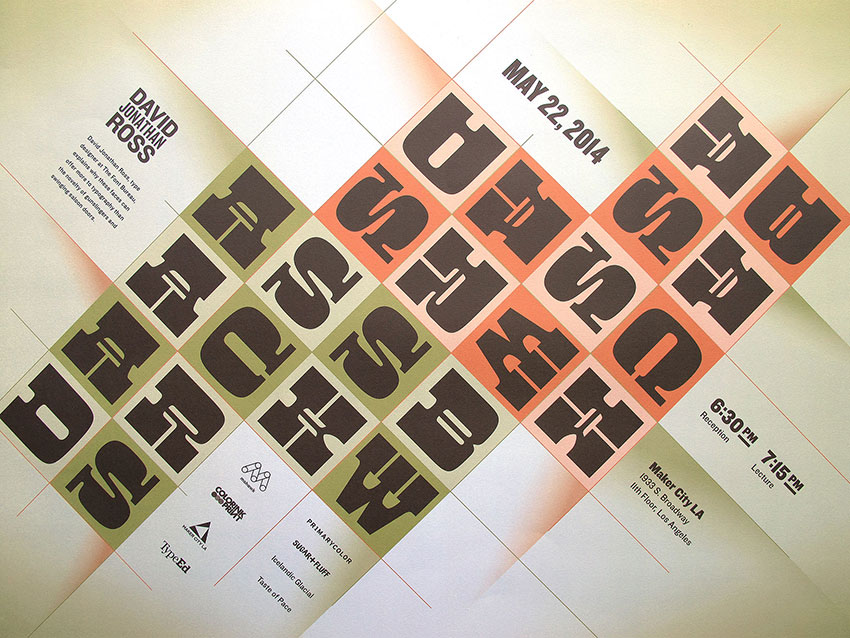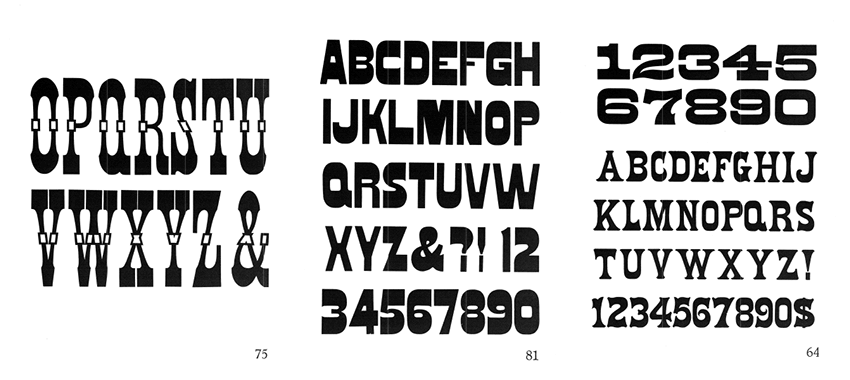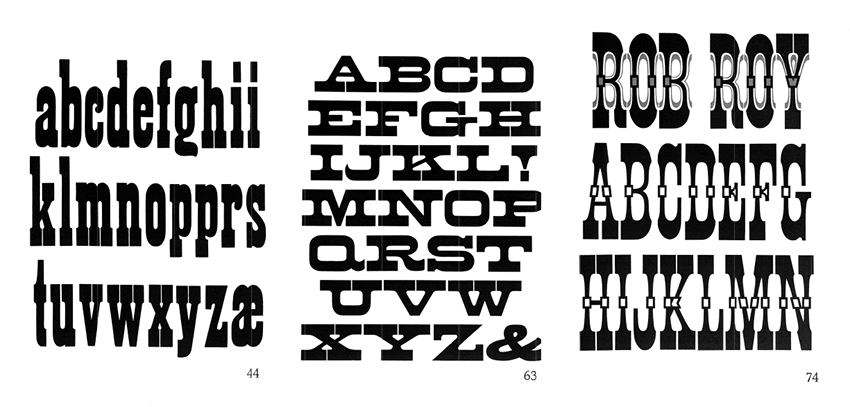
David Jonathan Ross designs typefaces at digital type studio The Font Bureau Inc, drawing letters of all shapes and sizes for custom and retail. From reversed stress slab serifs of the 19th century to Art Deco sans serifs of the 20th, he ransacks forgotten and pigeonholed lettering styles and searches for new approaches to the same old alphabet.
David graciously shared with us a bit about his humble beginnings and some beautiful scans of Rob Roy Kelly's American Wood Type.
What began your obsession with reverse-stress typefaces?
I designed and lettered a faux "wanted" poster… trying to attract new staff for my college newspaper. That was the beginnings of my first real typeface, Manicotti.
From Rob Roy Kelly's American Wood Type.
How did you come to design type?
I didn't go to art school. I became interested in design, but realized that graphic design didn't involve as much. I find making fonts to be a fun place at the intersection of drawing and problem solving.
What does your design process look like?
I usually draw directly on the computer, quickly prototyping ideas with a handful of characters while exploring a typeface through weights, widths, etc. Once I begin to settle on the design, I begin to expand the character set and number of styles, tightening up the design along the way. It's a very iterative process, one small change opens up the possibility for many other changes. Finally, it's a matter of adding kerning pairs and mastering the font file.
When it's a custom job, it can be a matter of weeks or months. But my average amount of time between when I come up with a font and when it is released is about two years (though I'm not working on it the whole time).